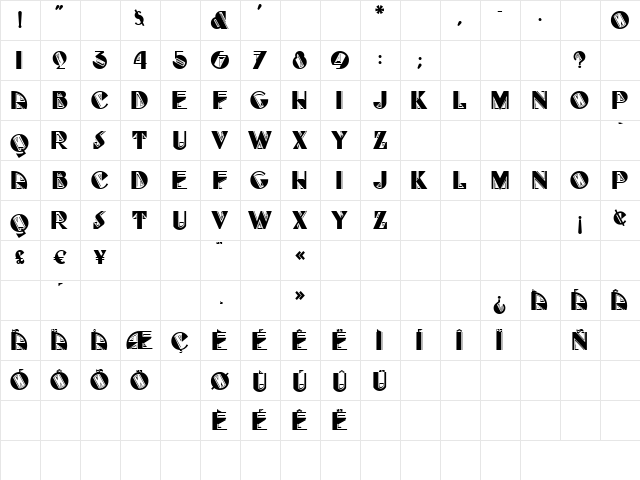
Full Tilt Boogie Capital Regular
Design Context for Full Tilt Boogie Capital Typeface
Full Tilt Boogie Capital is a composed and adaptable typeface that performs quietly and consistently across a wide range of design contexts.